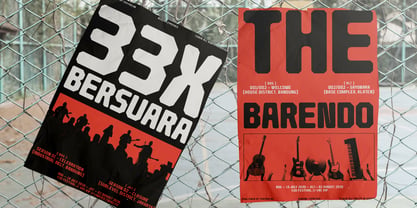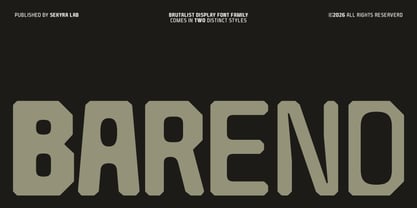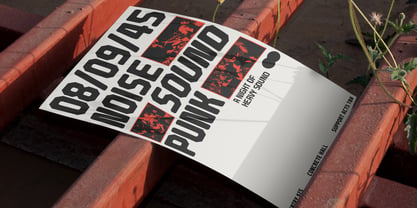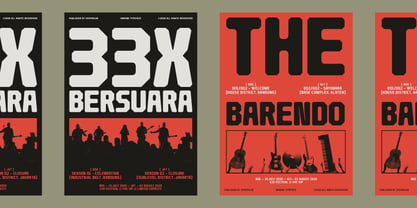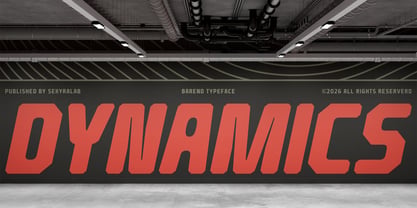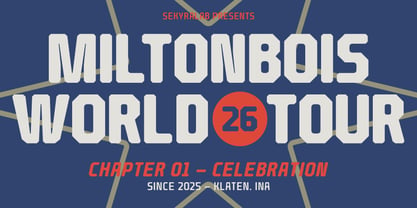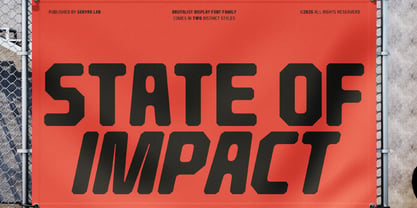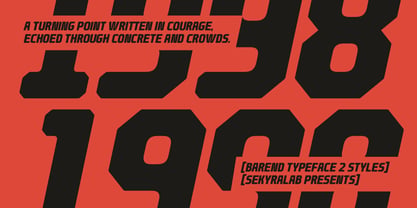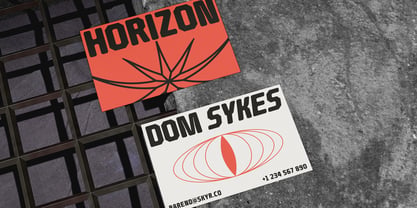
Barend
The Barend Font Family was designed by Hanif Al Irsyad and published by Sekyra Lab. Barend contains 12 styles and family package options. More about this family
Brutalist Display Font Family is a strong modern industrial typeface designed with sharp geometric cuts, solid structures, and confident letterforms. Inspired by raw brutalist architecture and contemporary graphic systems, this font delivers a bold and uncompromising visual presence. The family includes 6 weights from Light to ExtraBold, allowing flexible hierarchy and powerful typographic contrast. It also comes with two distinct styles: Regular and Slanted, giving you both stable block construction and dynamic forward motion in one complete system. With its wide proportions, angular corners, and clean mechanical rhythm, this typeface is perfect for impactful headlines and modern branding. The slanted style adds energy and momentum, making it ideal for sporty, editorial, and poster layouts.